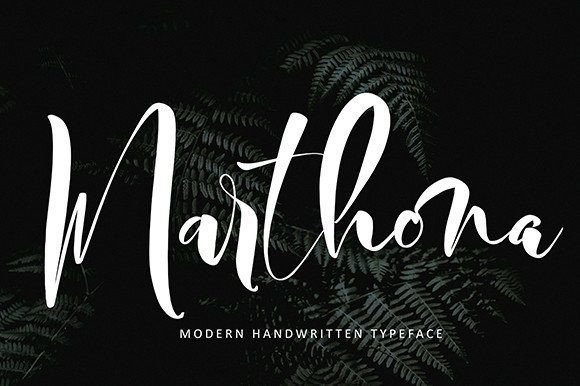
Prepare to be captivated by Marthona Script, a striking font that will elevate your designs to new heights. With its bold, expressive strokes, Marthona commands attention. Its well-defined lines and graceful curves create a visual feast, enhancing readability without overpowering the eyes.
Marthona Script is a stunning fusion of playfulness and professionalism, making it the perfect choice for a wide range of creative endeavors. Whether you're designing invitations, branding, or simply adding a touch of personality to your projects, Marthona Script will leave a lasting impression.
Unleash your imagination with Marthona's extensive character set, easily accessible through PUA encoding. Explore a world of stunning glyphs and ligatures, empowering you to craft designs that are both captivating and sophisticated.
Whether you're a seasoned designer or just starting your creative journey, Marthona Script is the perfect tool to add allure to your projects. Its versatility allows you to express yourself authentically, making every design a reflection of your unique style.
Experience the magic of Marthona Script today and watch your designs transform into masterpieces that will enchant and inspire.